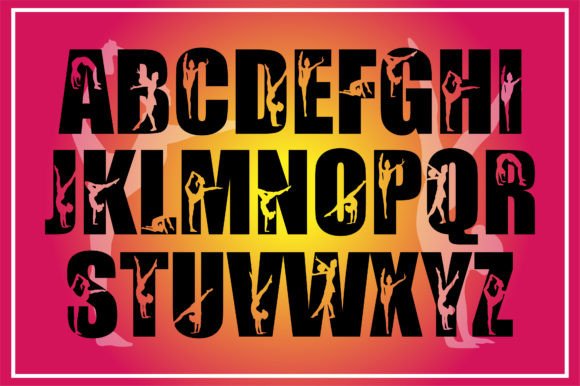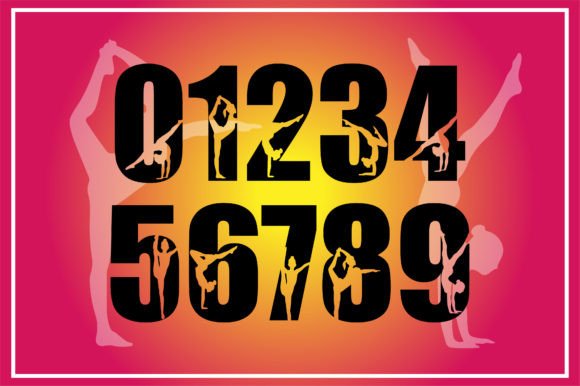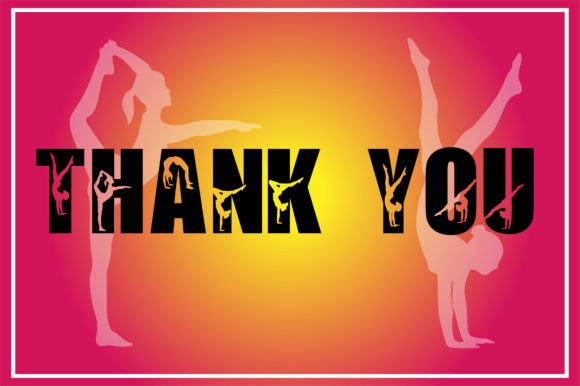
The Perfect Vault for Your Designs: Gymnastics Font
Have you ever been stuck in a creative rut, searching for that one font that will elevate your design from ordinary to extraordinary? I know I have. It’s like trying to land a perfect dismount on the balance beam – you need to find that sweet spot where form and function come together in perfect harmony.
That’s where Gymnastics Font comes in – a cool and original-looking decorative font that’s perfect for adding a touch of joy to your designs. Whether you’re creating a cartoon, designing a children’s game, or simply want to add some personality to your brand, Gymnastics Font is a great choice. Its playful style and versatility make it a valuable asset for designers looking to add some excitement to their work.
Gymnastics Font Key Features
- Font Family: A unique, custom-designed font family specifically created for the gymnastics industry.
- Character Set: Includes a wide range of characters, including letters, numbers, punctuation marks, and special symbols, making it suitable for various applications.
- Unique Characteristics: Features distinctive, bold lines and dynamic shapes that evoke the energy and movement of gymnastics, making it an ideal choice for sports-related designs.
Gymnastics Font Review
As a designer, I was intrigued by the Gymnastics Font and decided to put it through its paces. Here’s my honest review.
- Unique and eye-catching design: The Gymnastics Font has a distinctive look that’s perfect for making a statement.
- Wide range of weights and styles: The font comes in multiple weights, from light to bold, and various styles, including script and condensed.
- High-resolution glyphs: The font’s glyphs are crisp and clear, making it suitable for both digital and print applications.
- Limited language support: The font may not support certain languages or character sets, which could be a concern for multilingual designs.
- Some characters may not be optimized: A few characters, such as the ampersand, may not be perfectly optimized for certain font sizes or line heights.
- Lack of italic and bold-italic styles: While the font has various weights and styles, it’s missing italic and bold-italic variations.
The Gymnastics Font is a great choice for designers who want to add a touch of uniqueness to their projects. However, its limitations should be carefully considered, especially when working with multilingual content or requiring specific font styles. Overall, I’d give it 4 out of 5 stars.
Tips for Getting the Most Out of Gymnastics Font
Use Gymnastics Font to add a playful and dynamic touch to your designs. Consider using it for headings, titles, and other prominent text elements.
Gymnastics Font is commonly used in:
- Designing sports-themed graphics and posters.
- Creating fun and playful branding materials.
- Adding a dynamic touch to presentations and reports.